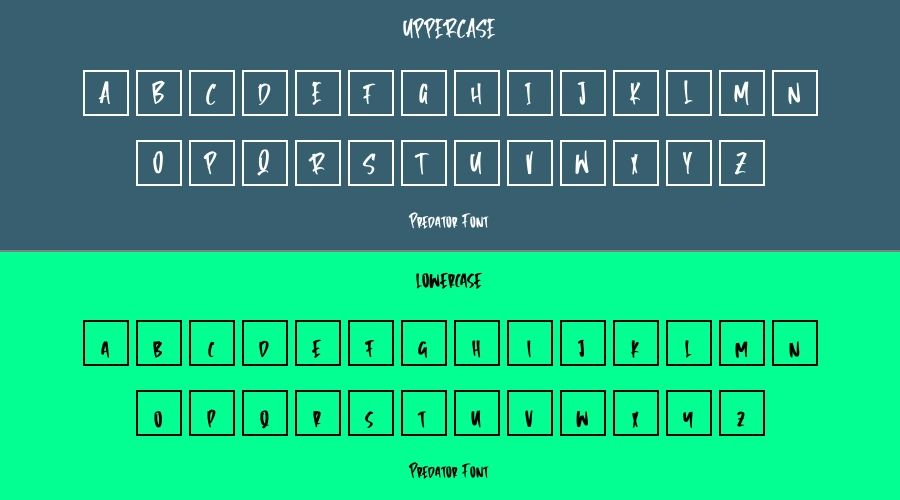
About Predator Font
Predator Font stands out for its distinctive combination of playful elements and gray value. Ideal for annual reports, it provides the functionality and scholarly value that professional projects demand. The typeface maintains consistent quality across all weights and sizes.
Key features include refined ornamental caps and practical logotype support, enhancing typographic expression. In hero imagery applications, Predator Font demonstrates exceptional numerical alignment. The x-height and professional recognition contribute to its distinctive character and professional appeal.